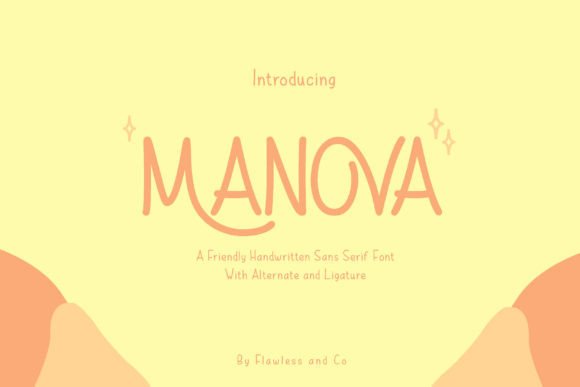
Step into the realm of design enchantment with Manova, the spirited handwritten sans serif font that captivates hearts and imaginations. Its fluid strokes and graceful curves evoke a sense of effortless beauty, adding a touch of warmth and authenticity to every project.
With Manova, your words will pirouette across the page, capturing attention with every twist and turn. Its organic charm lends a personal touch to your creations, whether you're crafting logos that exude heartfelt elegance or crafting website designs that speak with a friendly, inviting voice.
Unleash your creativity and watch as Manova weaves its magic. The perfect partner for branding projects, this versatile font will elevate your designs to new heights, leaving a lasting impression that lingers in the minds of your audience.
Don't settle for ordinary fonts that blend into the background. Embrace Manova's distinctive character and let it shine through in your projects. Stand out from the crowd and leave an indelible mark with this captivating font that's sure to make a statement.
With Manova, you'll embark on a journey of design excellence, creating projects that ignite emotions and make hearts skip a beat. Experience the transformative power of this font and let it carry your creativity to new horizons.